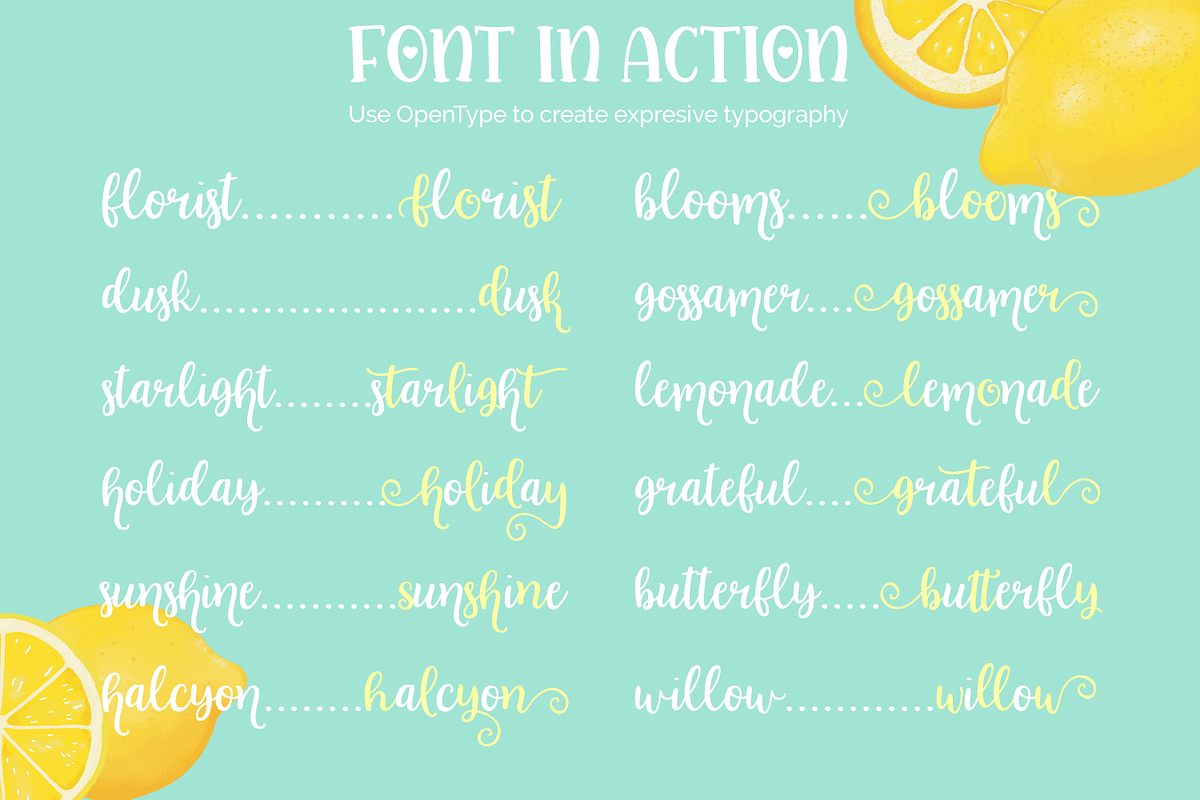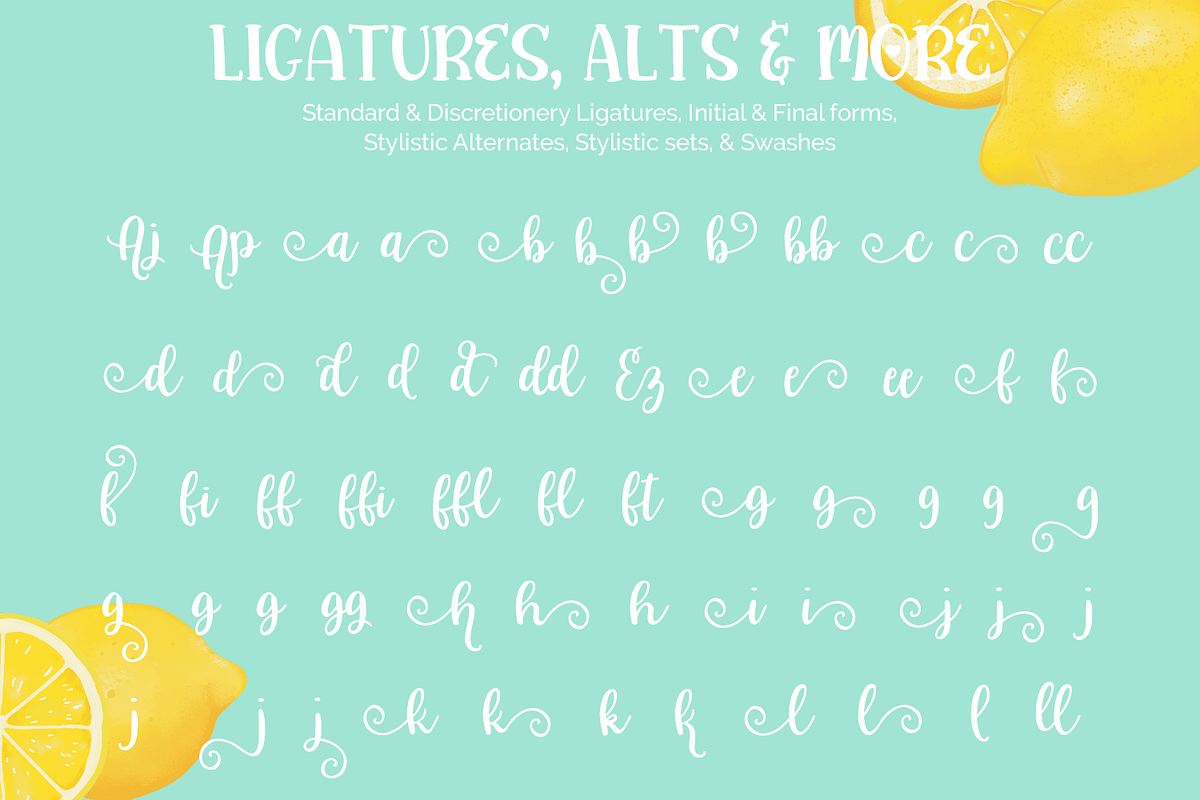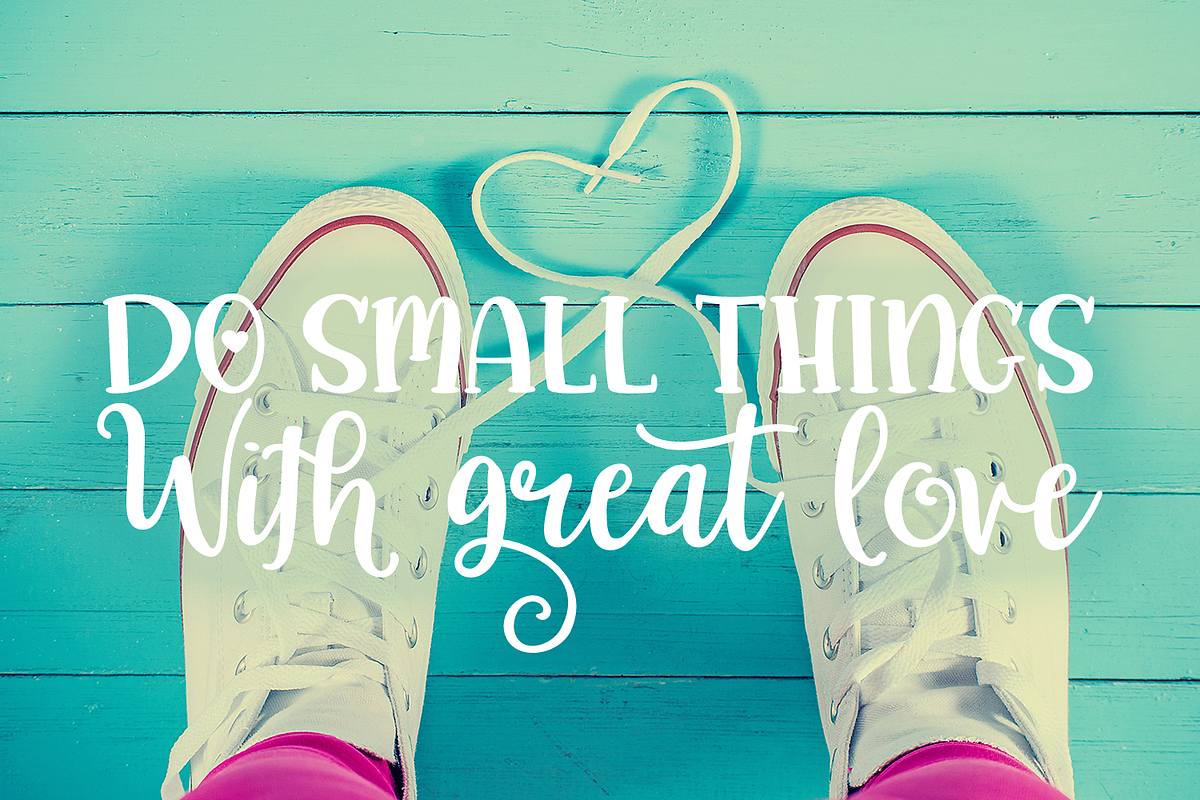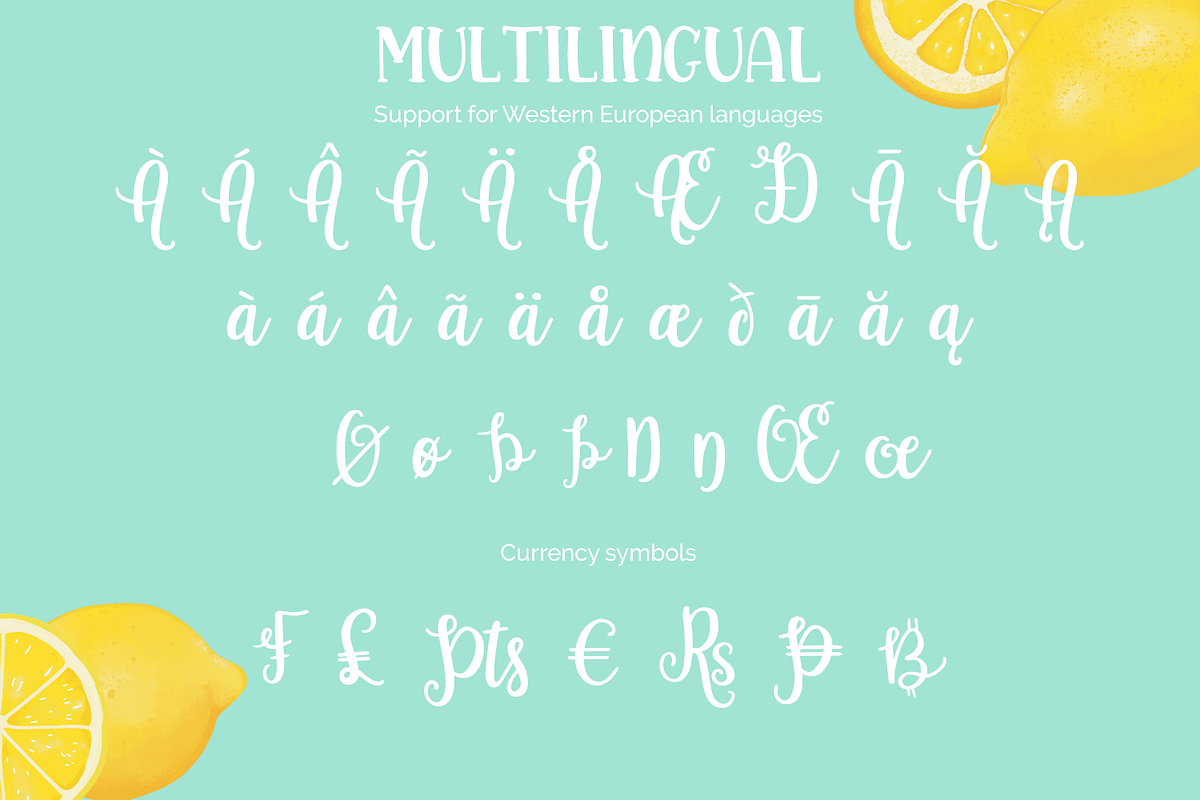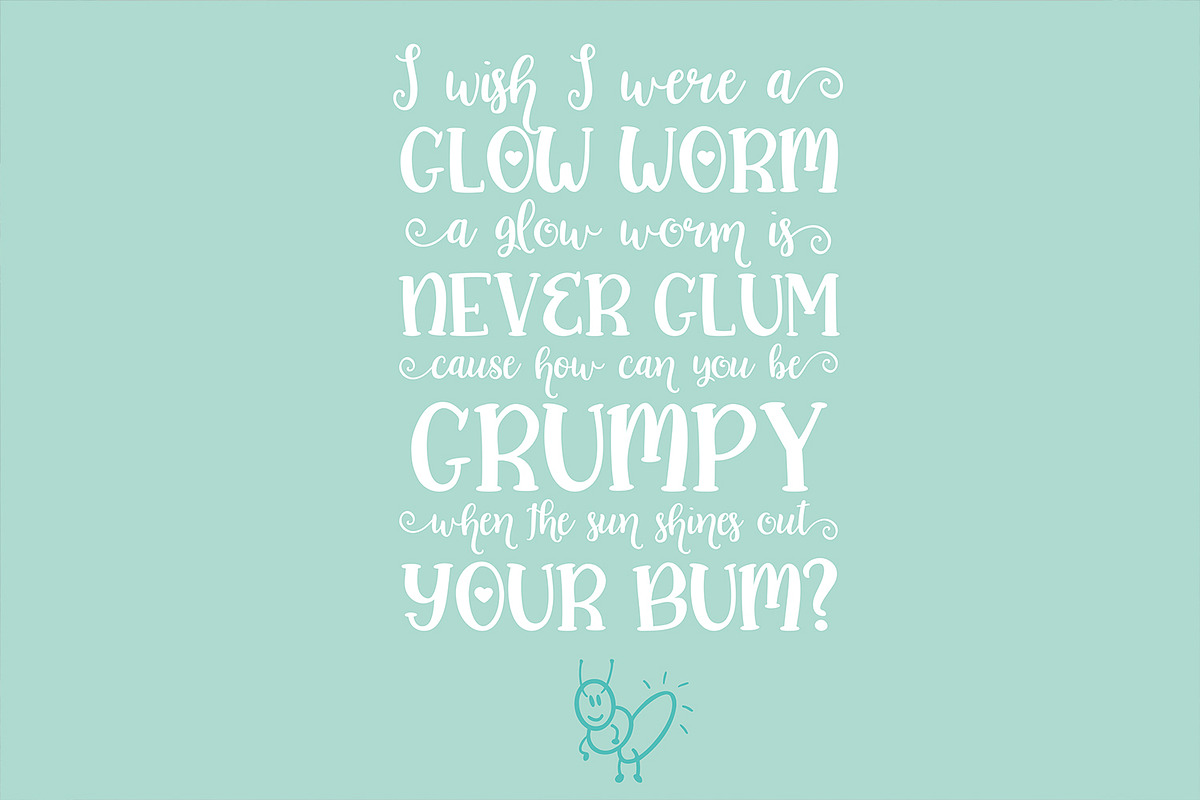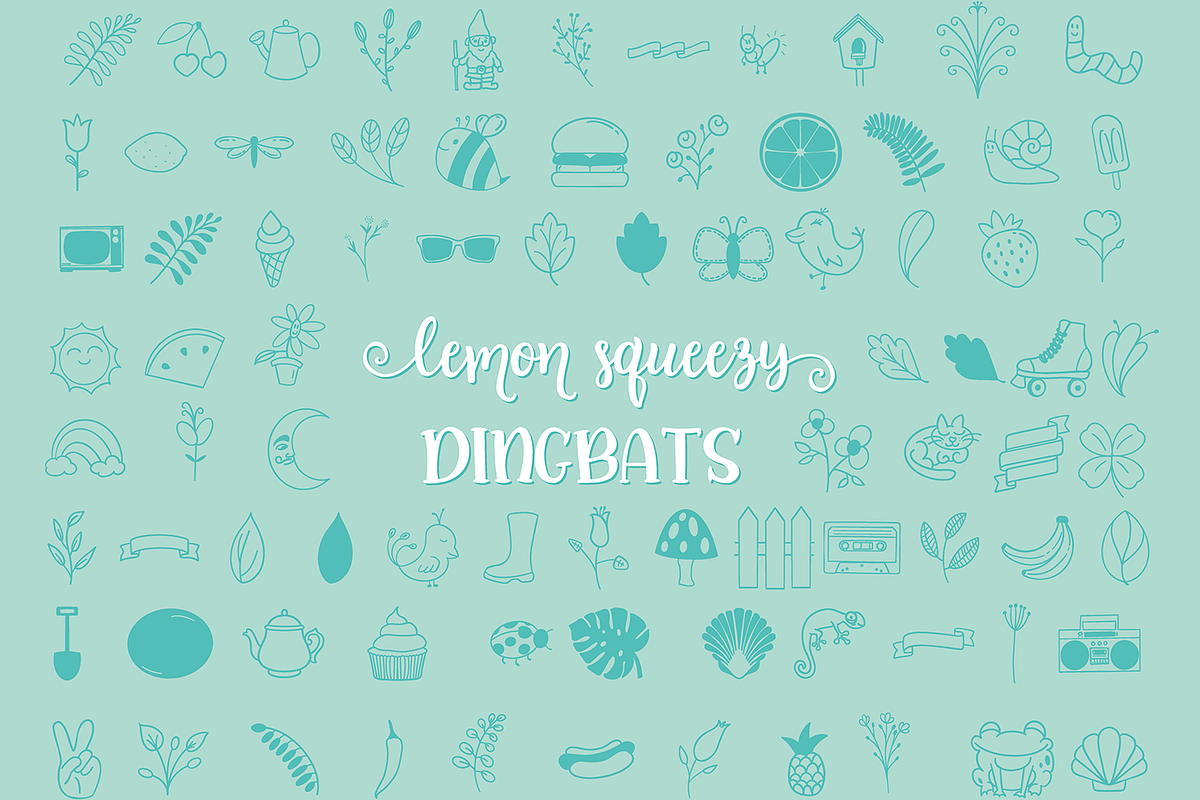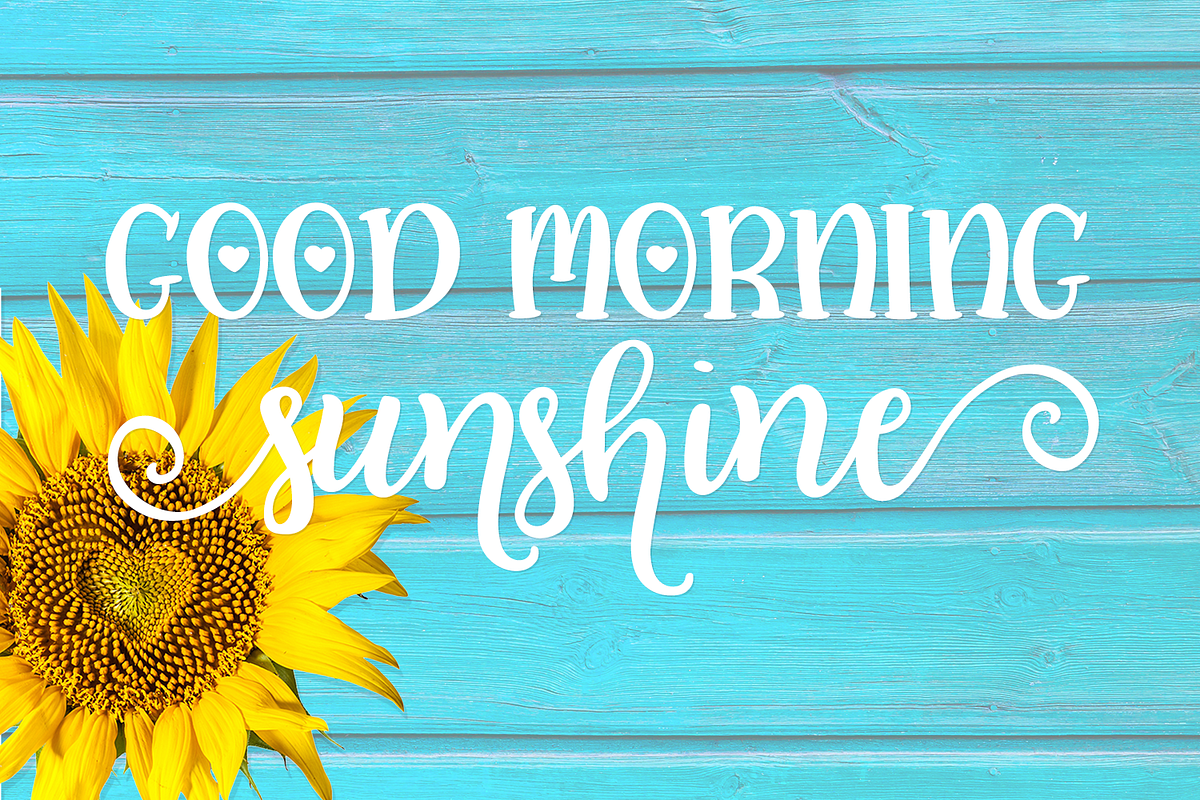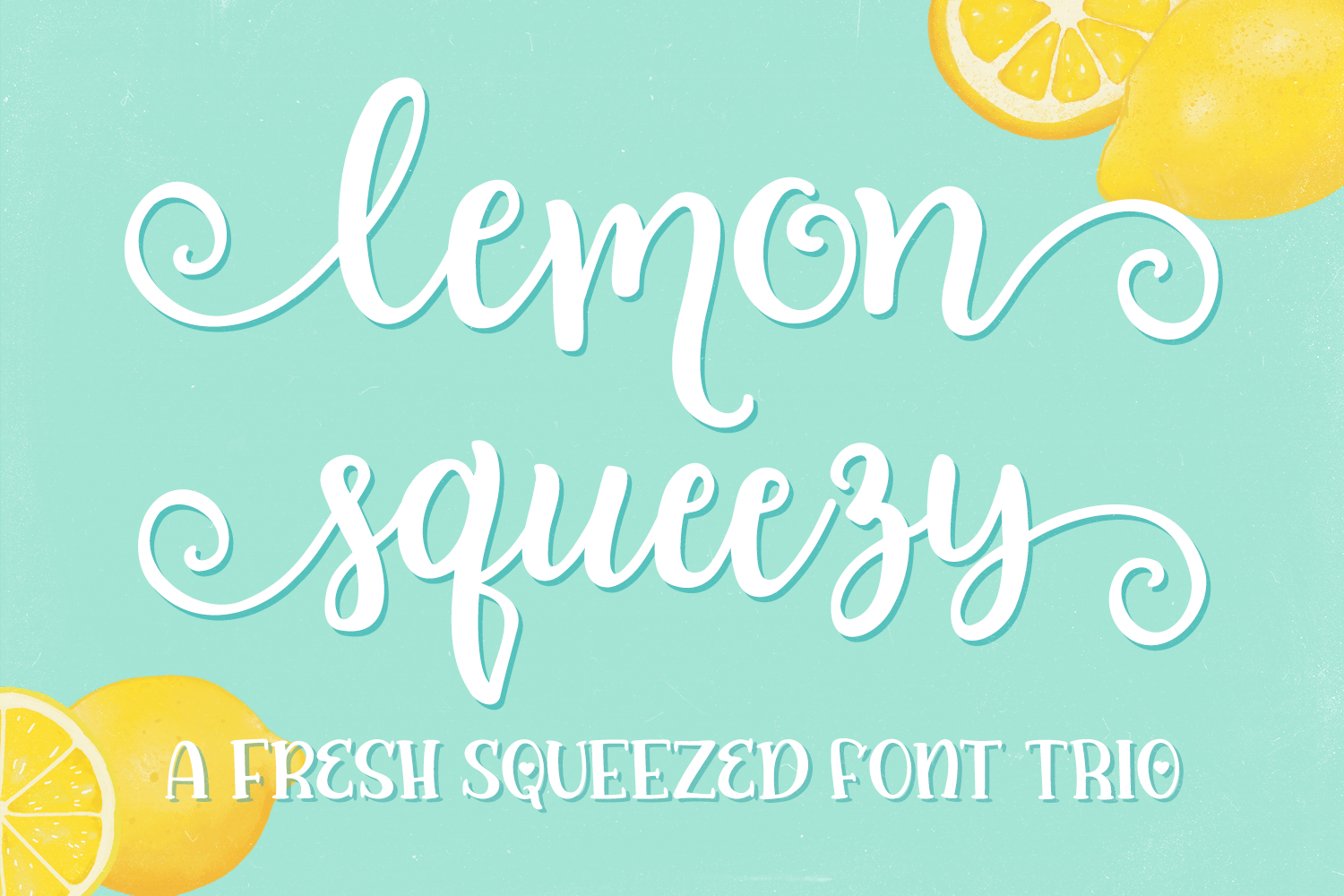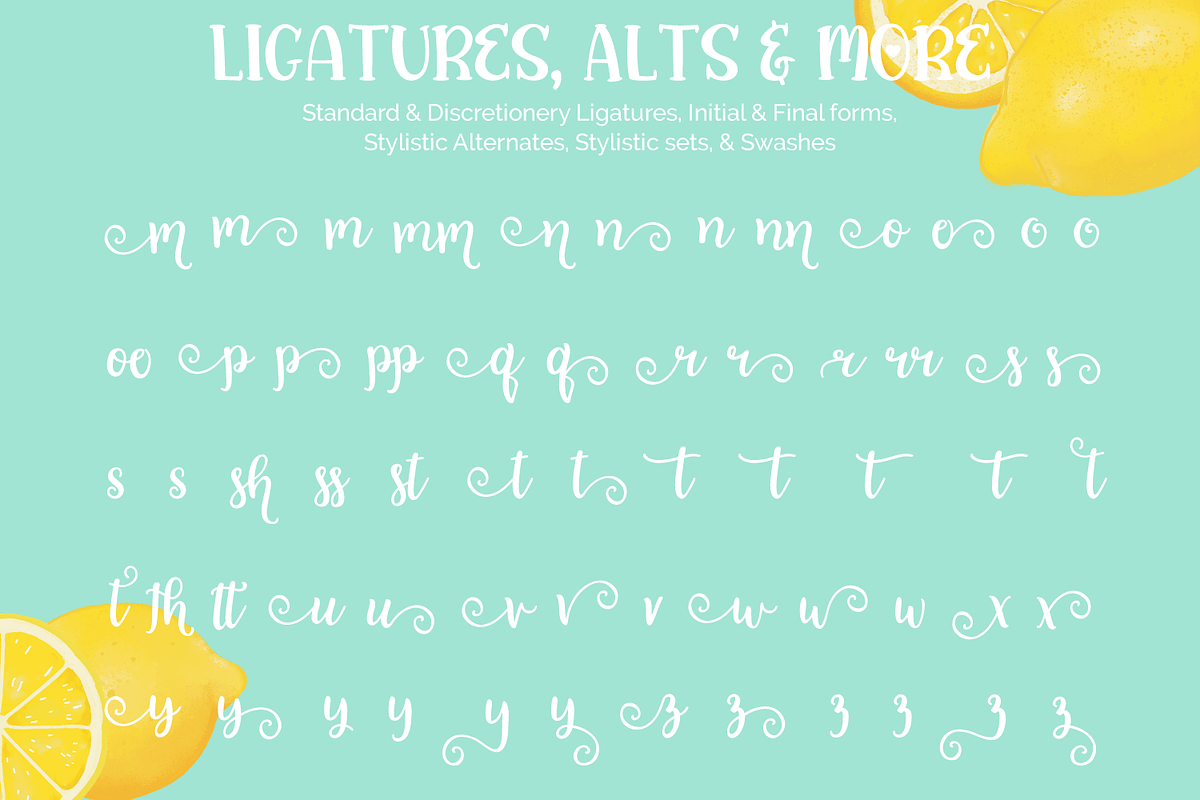
Lemon Squeezy font trio + dingbats!
Introducing Lemon Squeezy a fresh-squeezed font family!
This font was designed remembering childhood halcyon days of summer gardens, chillaxin' with my homies the cats, bugs, and flowers, and making lemonade with lemons from the lemon tree in the front yard.
Lemon Squeezy is a delightful script that dances across the baseline, drops and swoops below it, and sweeps and curls at the start and end of each word. There are in total 112 styled ligatures and alternates, which includes initial and final (swash) forms for each lowercase letter.
Lemon Squeezy Sans is a darling condensed monoline mixed-case sans. It is a quirky typeface with alternates that squeeze in beside the other glyphs. This font also includes 18 ligatures and stylistic alternates!
Lemon Squeezy Serif is a sassy mixed-case serif font that was designed to complement the other fonts in this family.
Dingbats! I've included a series of dingbats, ornaments and frames to help with decorating your typography. This font has a total of 96 unique glyphs! These are also included as a vector (AI, EPS, SVG, PDF, and DXF files)
This font family is perfect for branding, invitations, t-shirts and so much more!